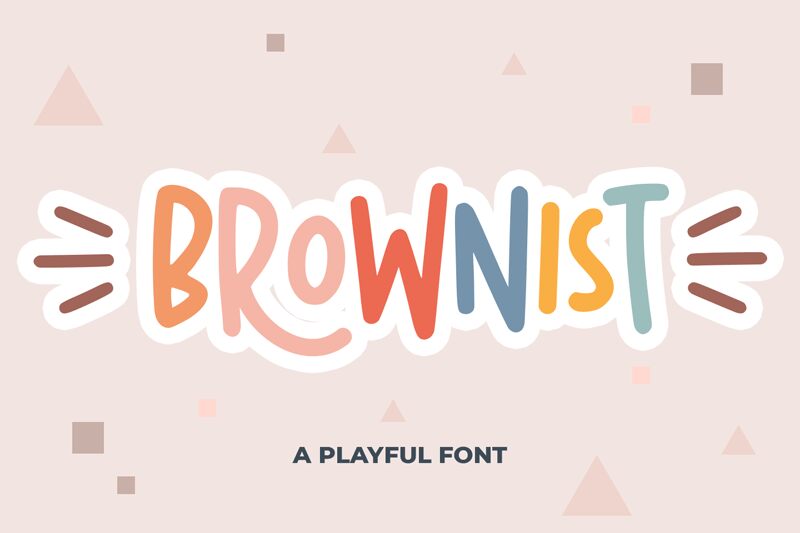
Brownist
Brownist, a captivating handwritten font designed by the talented team at Abo Daniel Studio, exudes a delightful sense of spontaneity and charm. With its condensed width and whimsical strokes, this font effortlessly captures the essence of a personal, handcrafted aesthetic. The bold, expressive letterforms and fluid transitions between thick and thin lines create a visually striking and distinctive typeface, evoking a sense of authenticity and warmth.
Brownist's versatility shines through, making it a compelling choice for a wide range of design applications. From eye-catching headlines and impactful titles to inviting body copy and playful branding elements, this font seamlessly adapts to various creative projects, infusing them with a touch of artisanal flair and personality.